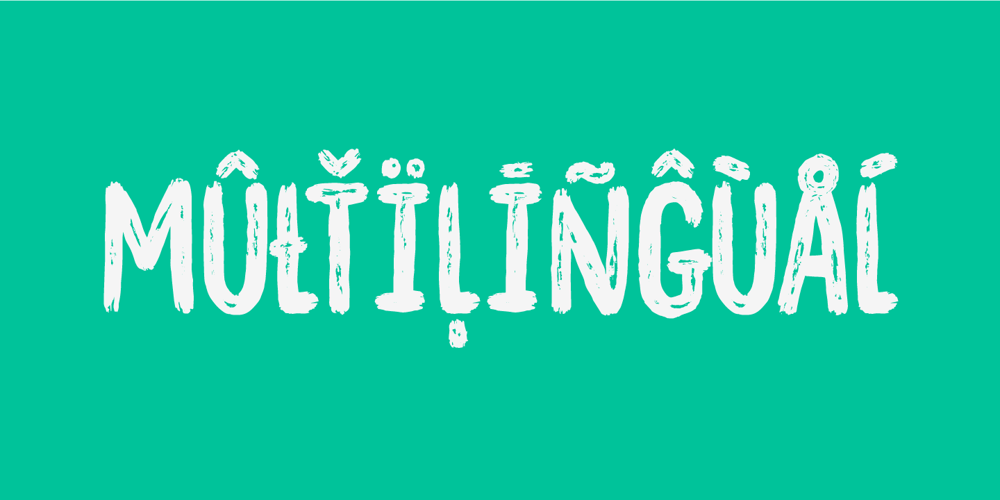
Overblik Font Family was designed by Jakob Fischer and published by Bogstav. Overblik contains 2 styles and family package options. A hard-headed brush font with strong strokes and attitude! Comes with contextual alternates, and in this case you have 4 different versions of each letter – they cycle automatically as you type for nice randomness! Of course there is multilingual support as well! Enjoy and crash some designs!